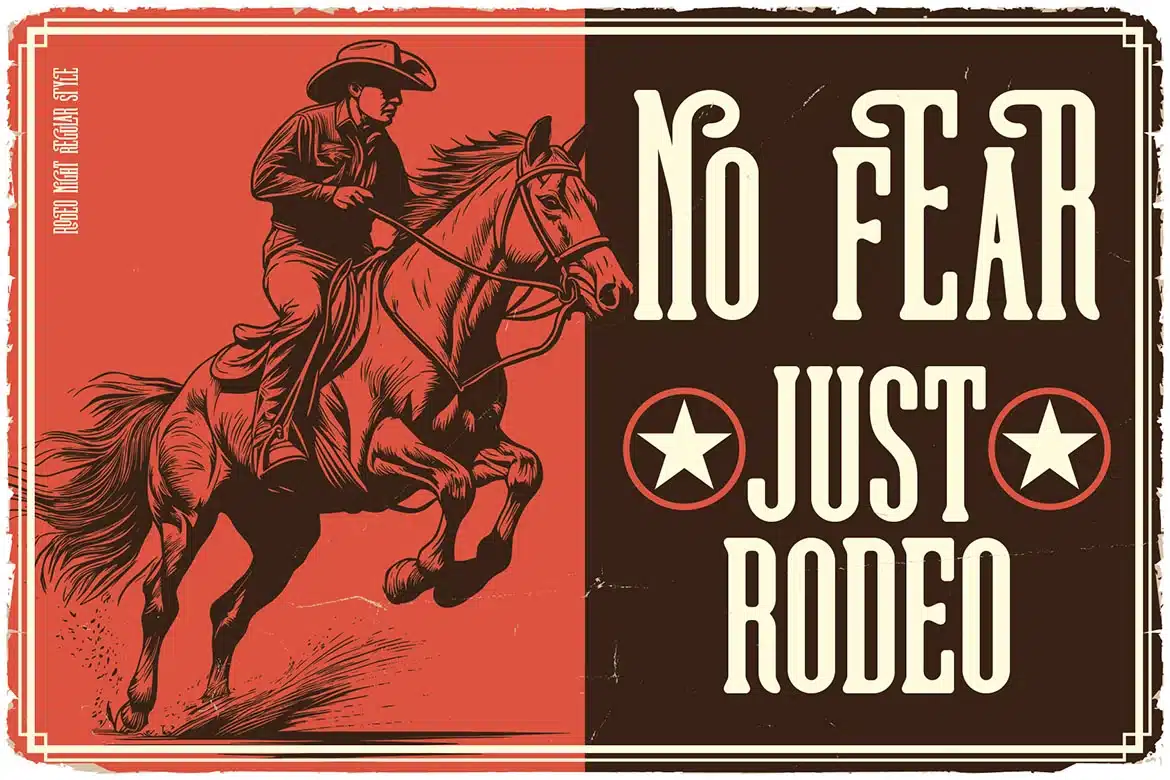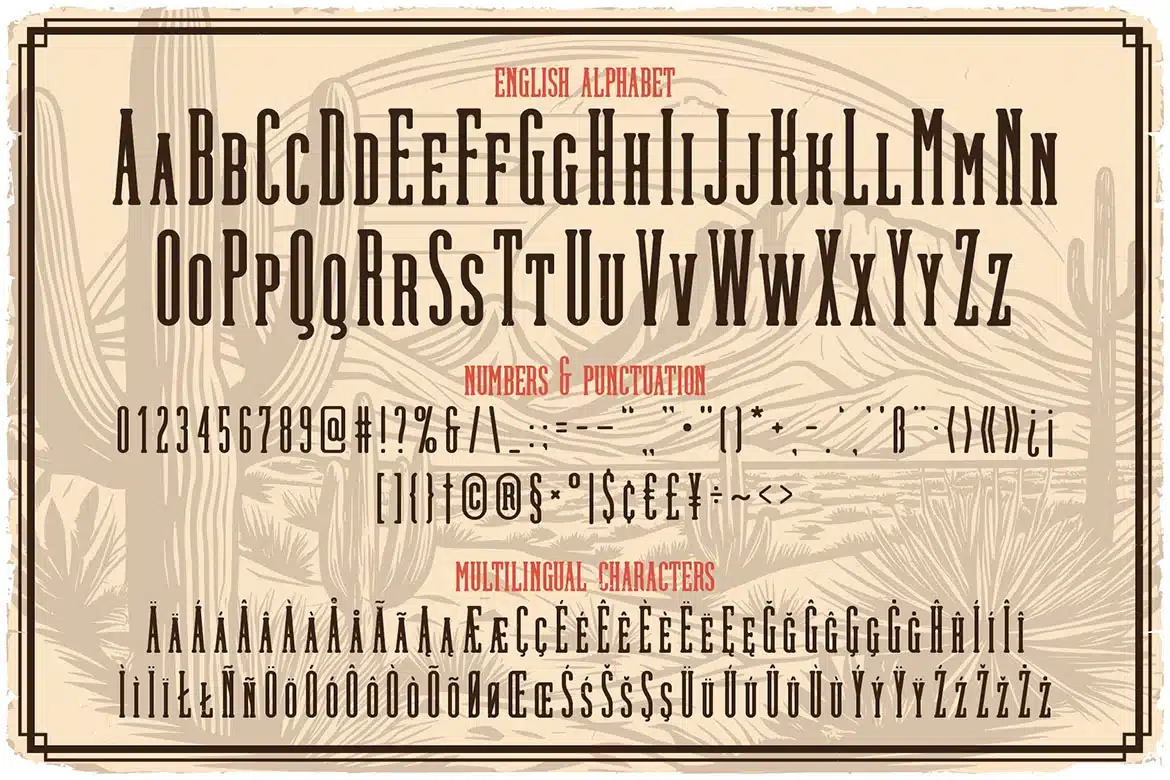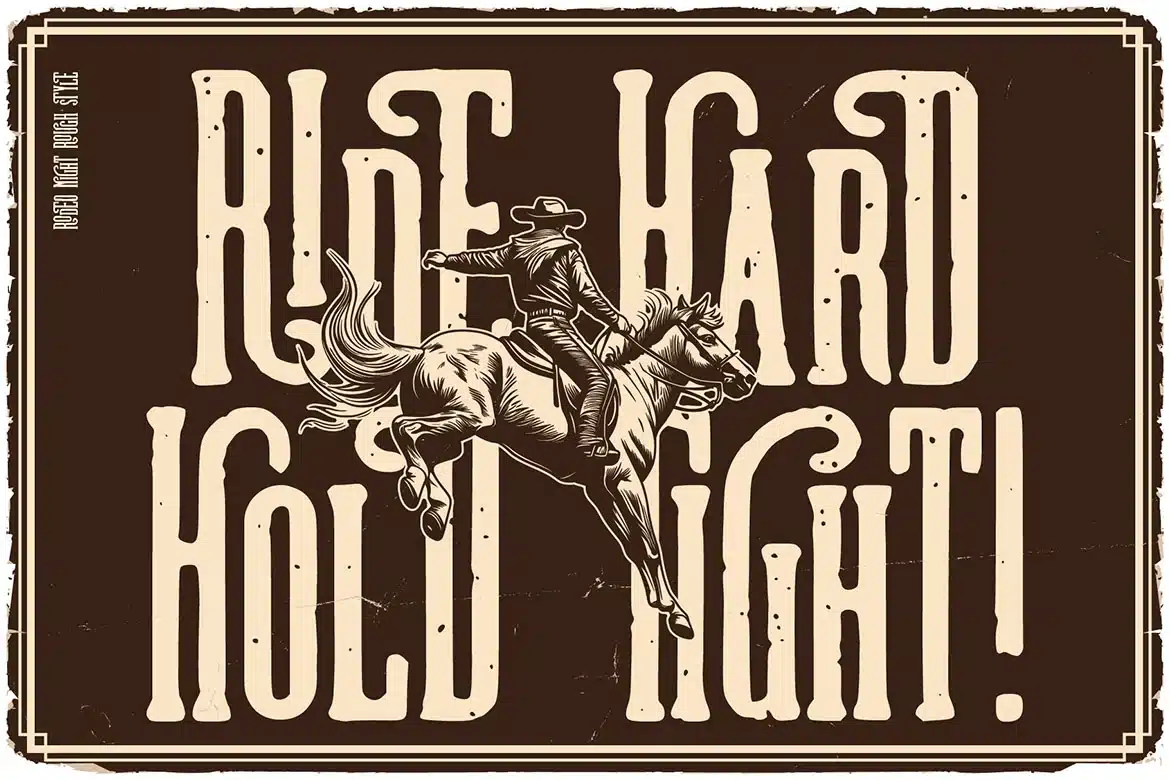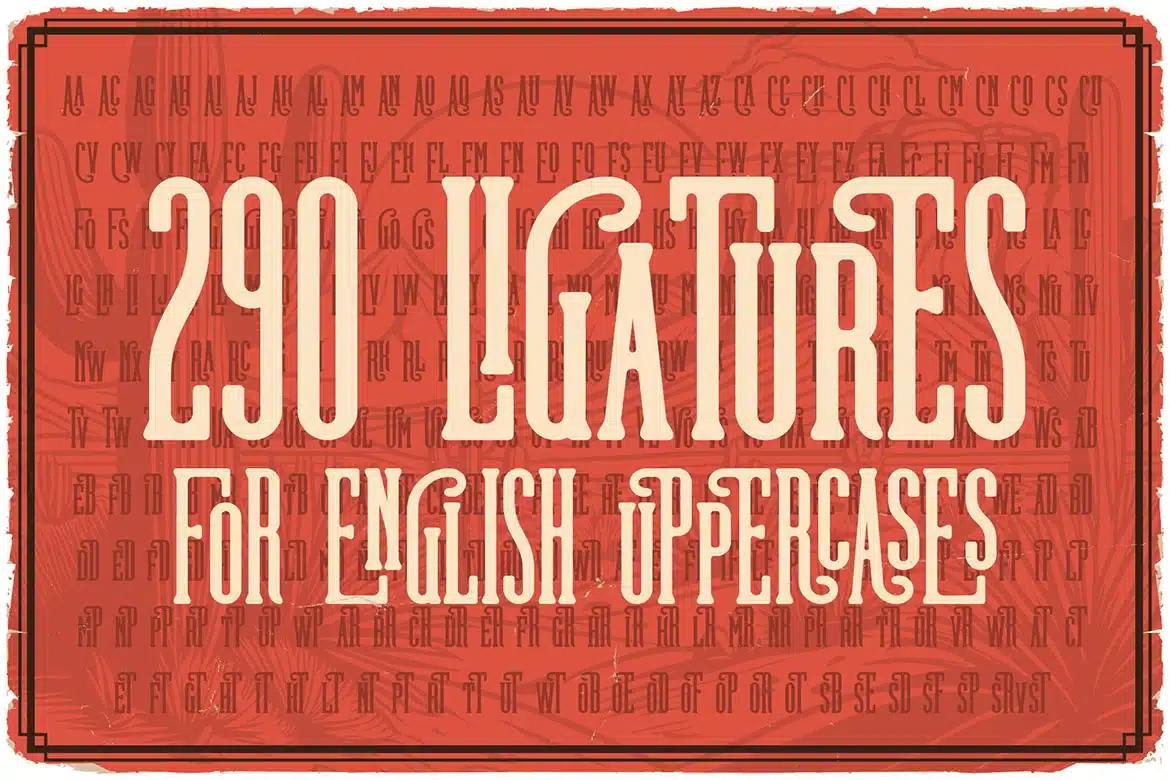
Rodeo Night Vintage Label Font
Unique, decorative, condensed, retro, ligature, vintage & stylish label serif font. Comes with multilingual support, 2 font versions & 290 ligatures - great for your new logo, monogram or branding project.
- 2 font versions - regular & rough
- Multilingual support & 290 ligatures
- Great for your new logo, monogram or branding project